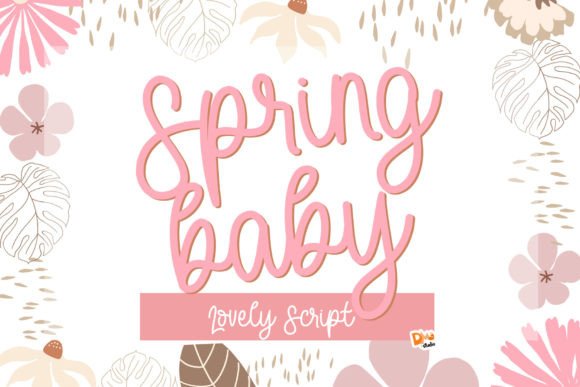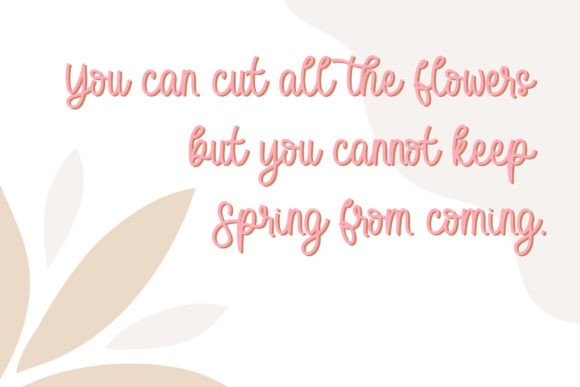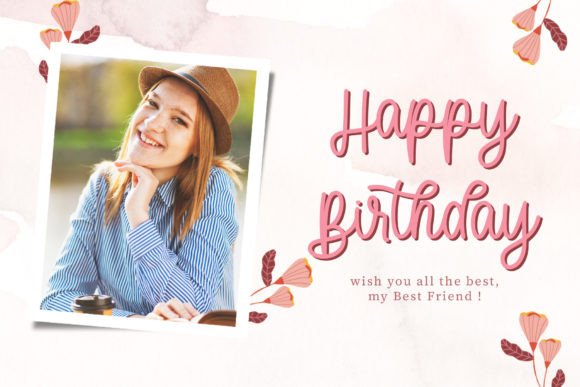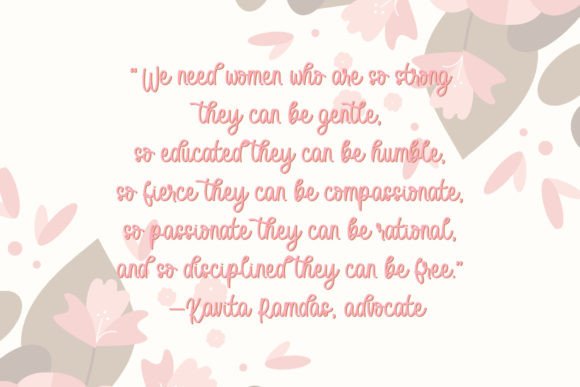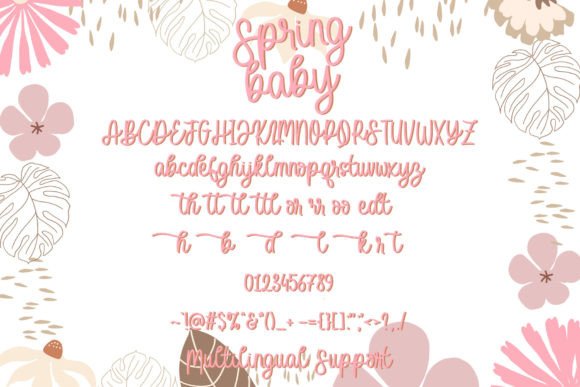
Spring Baby Font
About Spring Baby Font
Introducing Spring Baby, a lovely handwritten script font designed to add a touch of charm and warmth to your creative projects. This versatile font is crafted to make your designs more awesome, offering ease of use and adaptability for various purposes.
Spring Baby’s handwritten script style brings a personal and delightful feel to your text, making it ideal for projects that require a touch of elegance and friendliness. Whether you’re working on invitations, branding materials, social media graphics, or any other creative endeavor, Spring Baby is designed to enhance your designs with its lovely and versatile character.
The simplicity and versatility of Spring Baby make it easy to integrate into a wide range of design contexts. Its charm and handwritten appeal can be applied to various purposes, allowing you to add a touch of warmth and authenticity to your projects.
Consider using Spring Baby to create invitations with a lovely and personal touch, infusing charm into your branding materials, or making your social media graphics more engaging. Its versatility ensures that it can be seamlessly incorporated into different design applications, providing a consistent and delightful look.
In essence, Spring Baby is more than just a font; it’s a creative tool crafted to make your designs more awesome. Let it be the lovely and handwritten script that adds character and warmth to your projects, making them stand out with a delightful and charming presence.